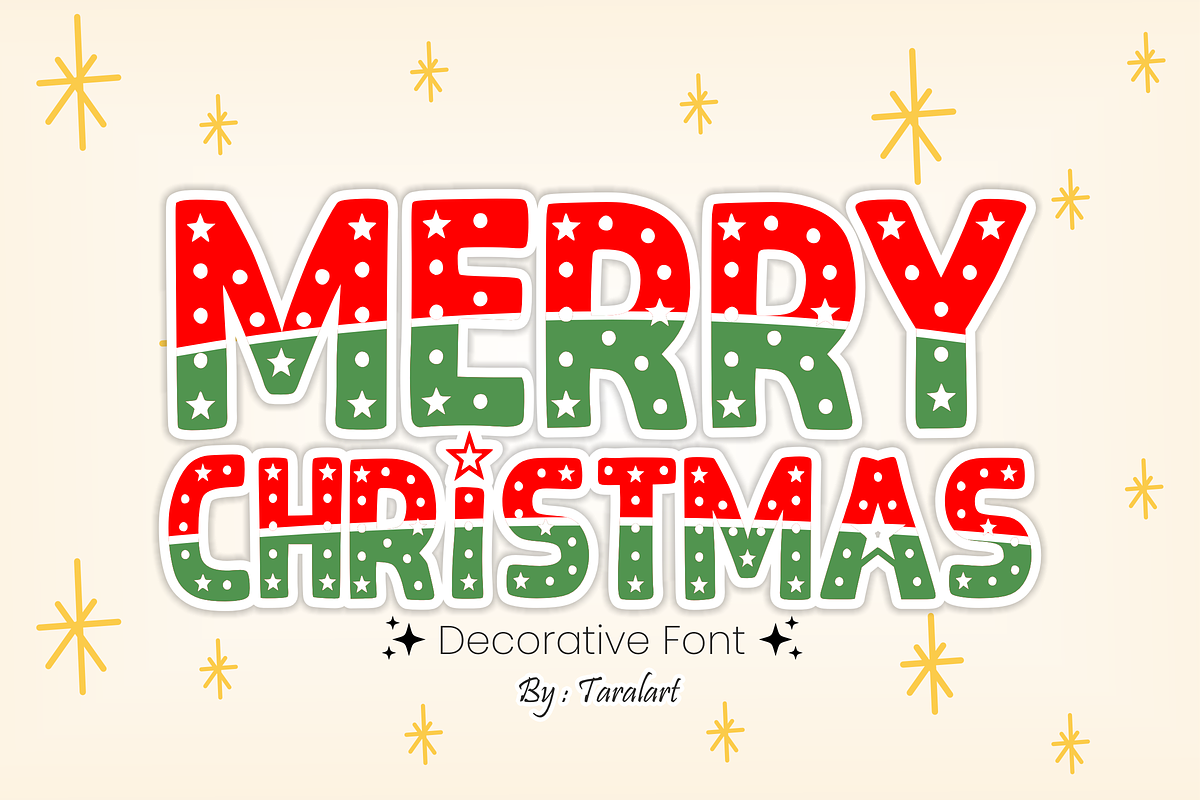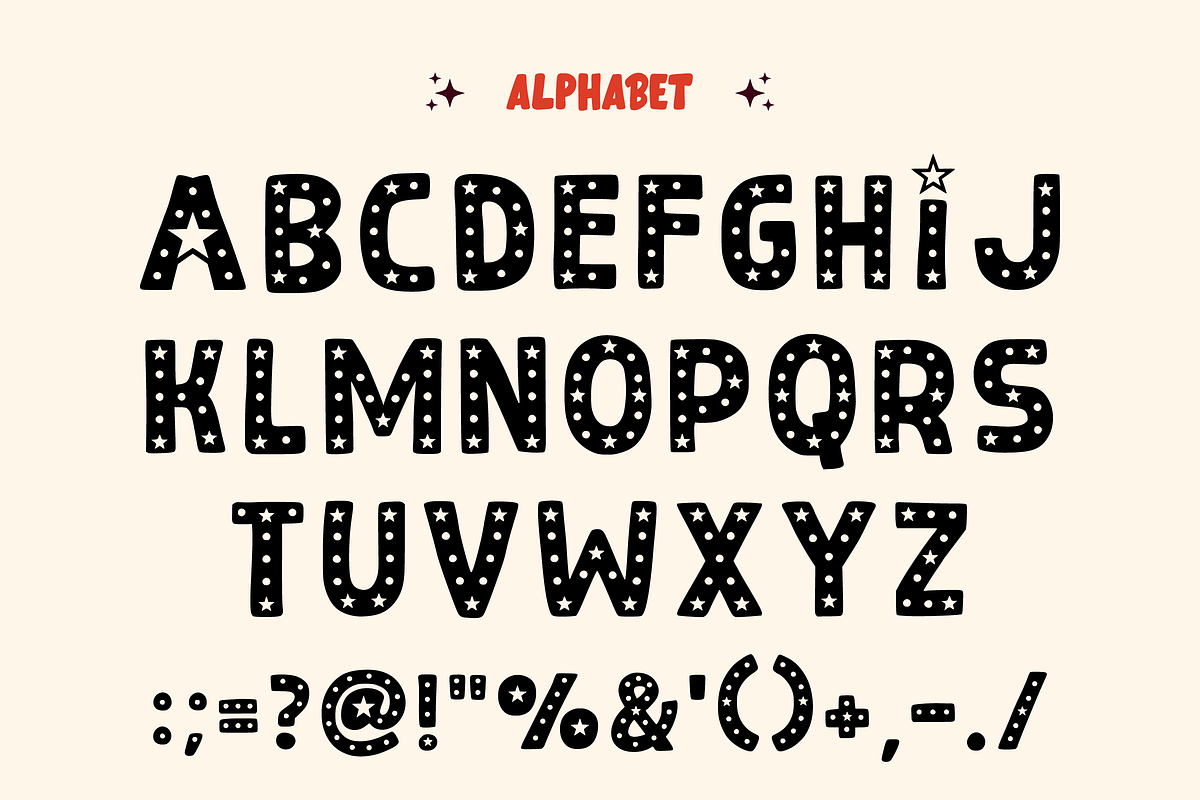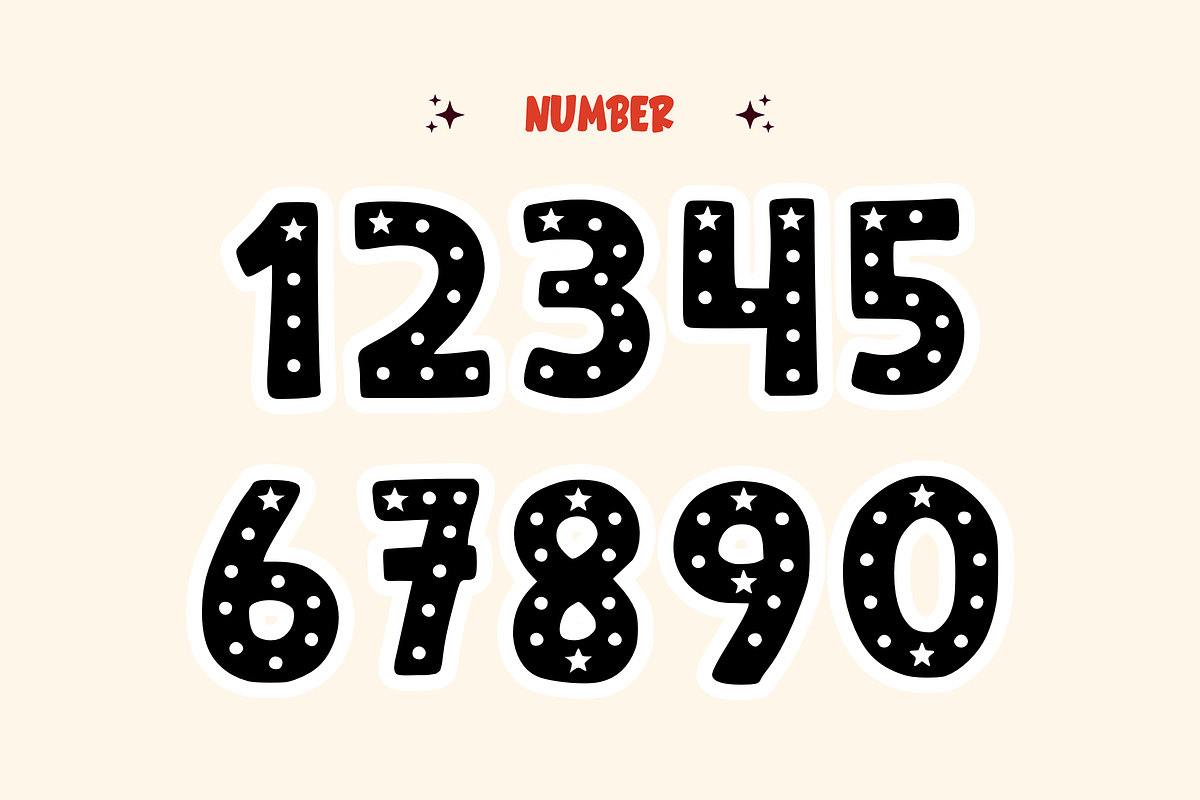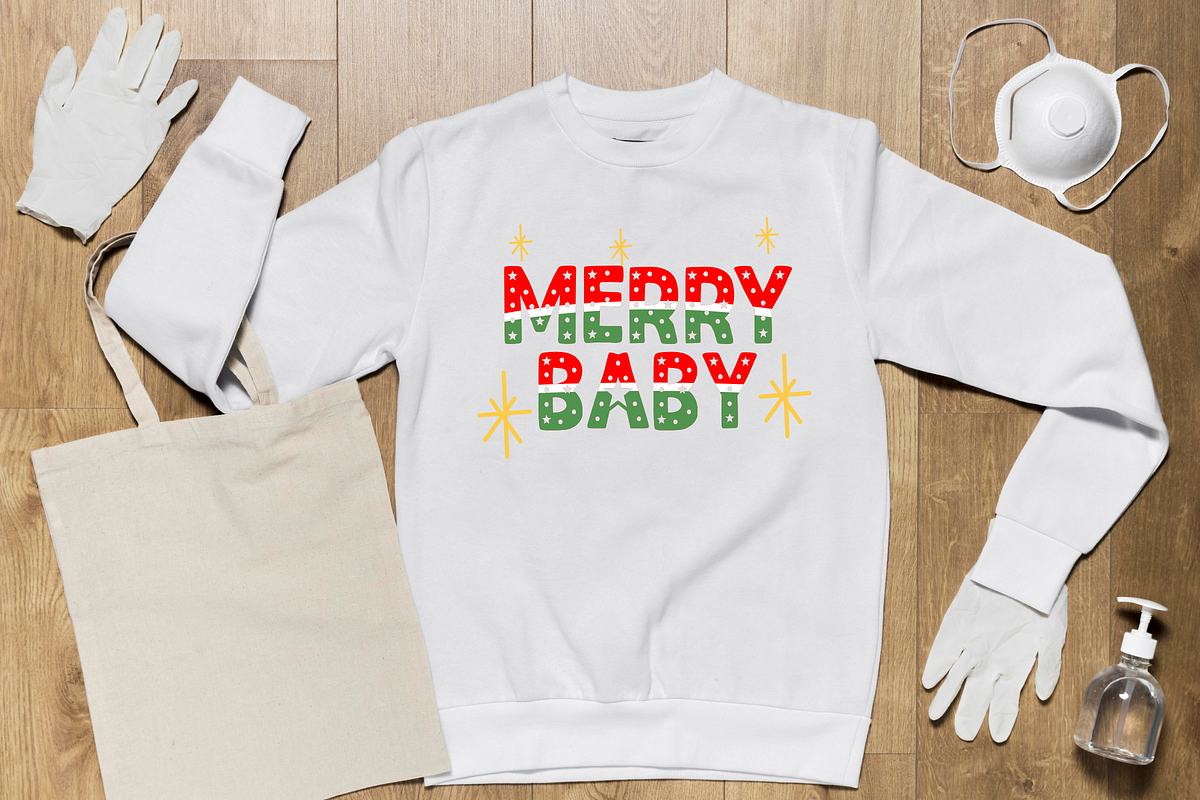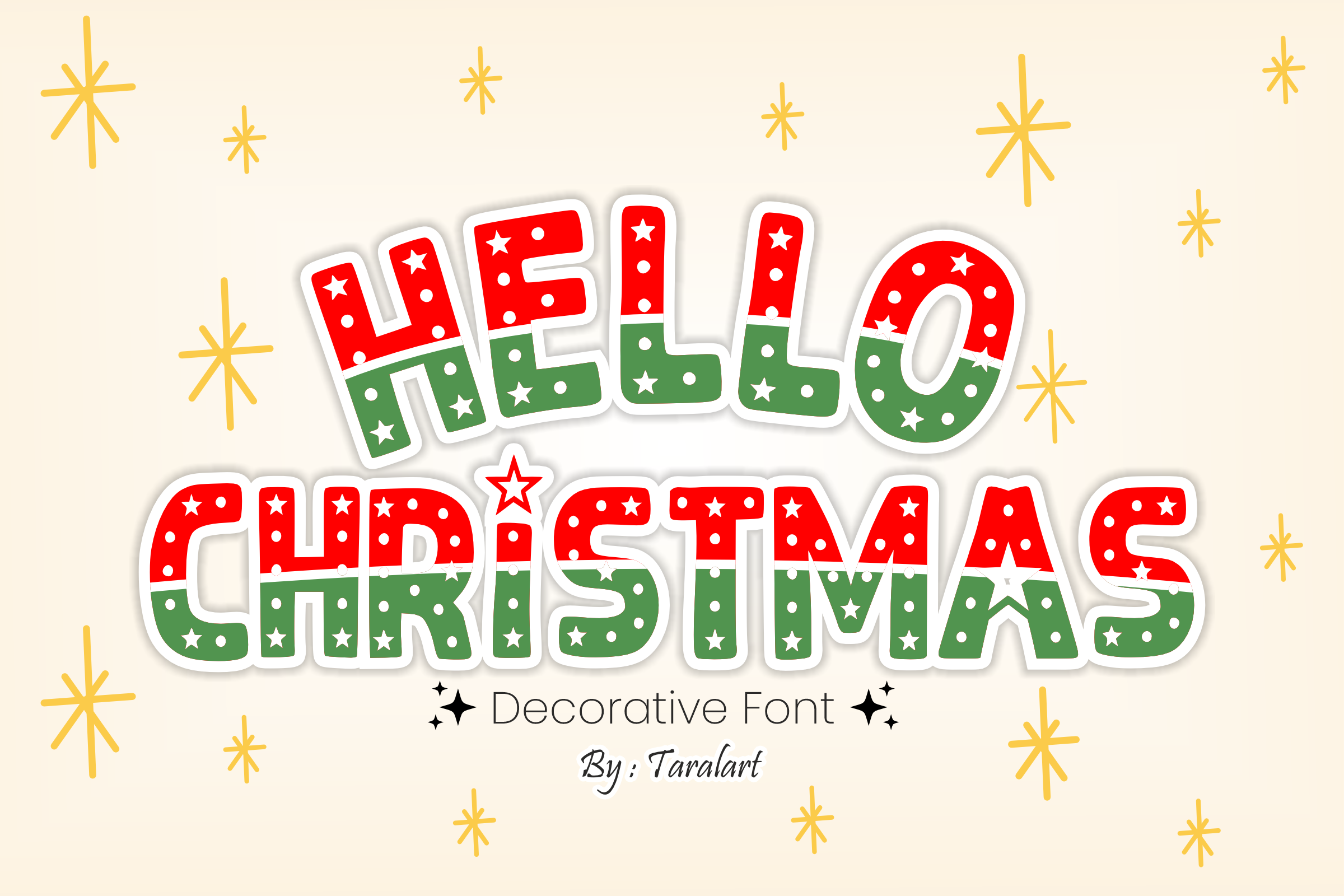
Hello Christmas - Festive Font
Spread holiday cheer with Hello Christmas! This bold, decorative display font features a whimsical split-color look packed with festive stars and playful polka dots inside each letterform. It’s the ultimate choice for making your holiday headlines, winter crafts, and seasonal greetings look magical and joyful.
Perfect for Christmas branding, festive party decor, and trend-focused crafting, Hello Christmas beautifully pairs a playful holiday aesthetic with excellent legibility. It is highly versatile, deeply expressive, and fully optimized for flawless performance across premium digital cutting tools and professional print setups.
All-Caps Character Set (Chunky, decorative uppercase letters with festive patterns)
Numbers & Basic Punctuation (Essential, simple symbols included)